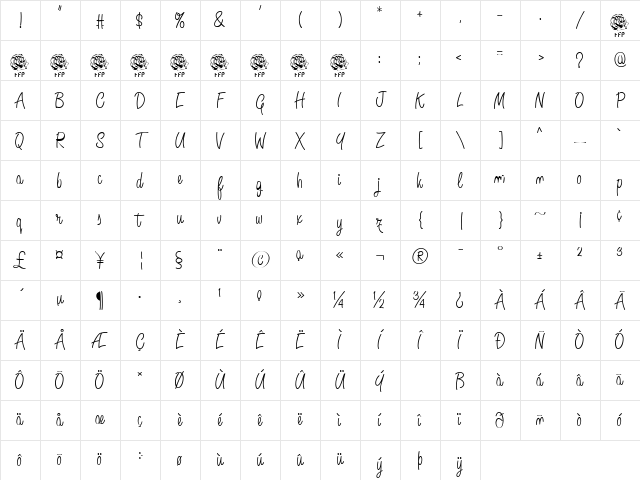
Angelique Rose FFP Free Font
Angelique Rose FFP
Style: FFP
Foundry: Fernando Haro
Designer: deFharo
Angelique Rose Family
Angelique Rose FFP
Design Context for Angelique Rose
Angelique Rose is a composed and adaptable typeface that performs quietly and consistently across a wide range of design contexts.